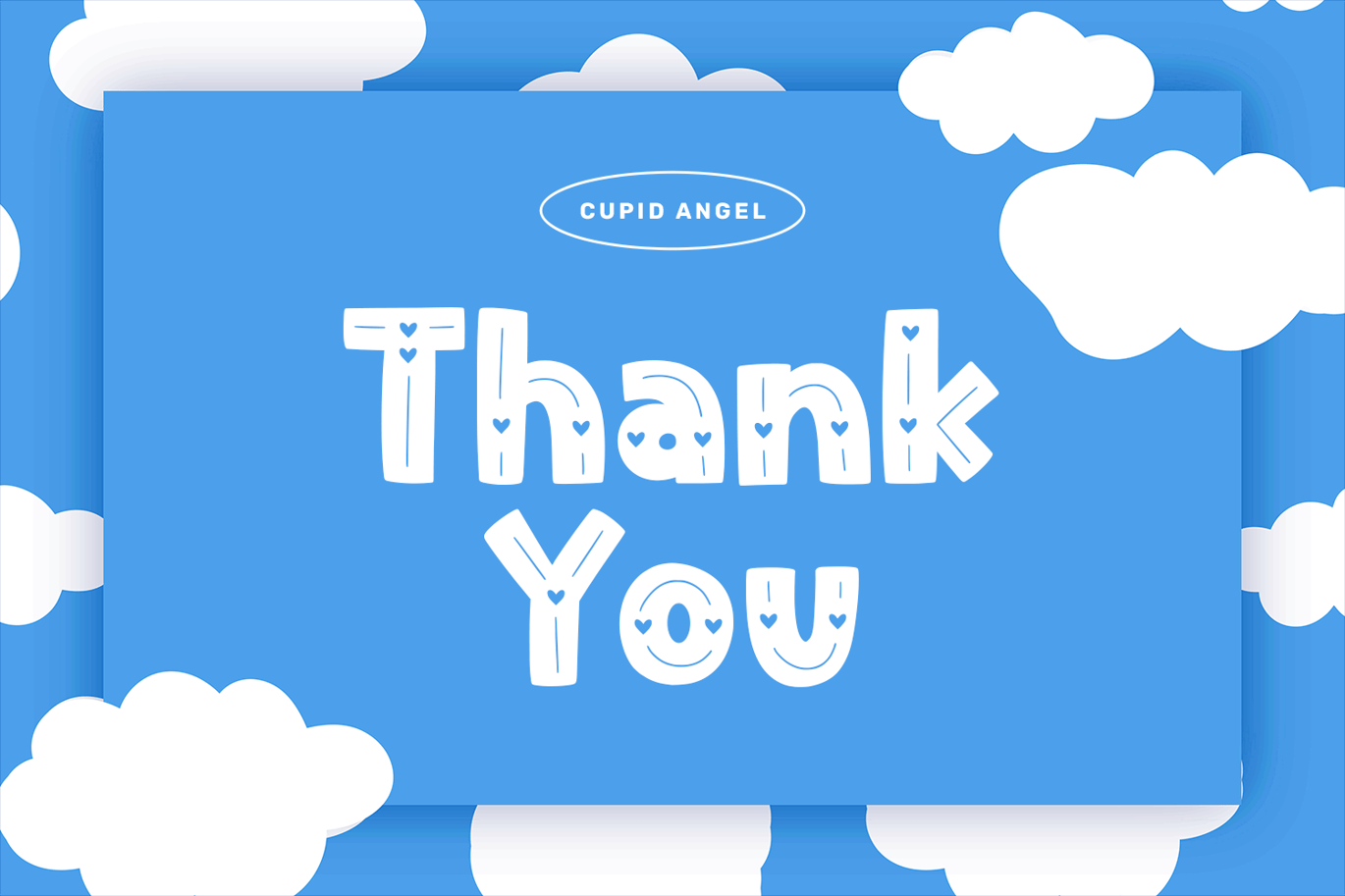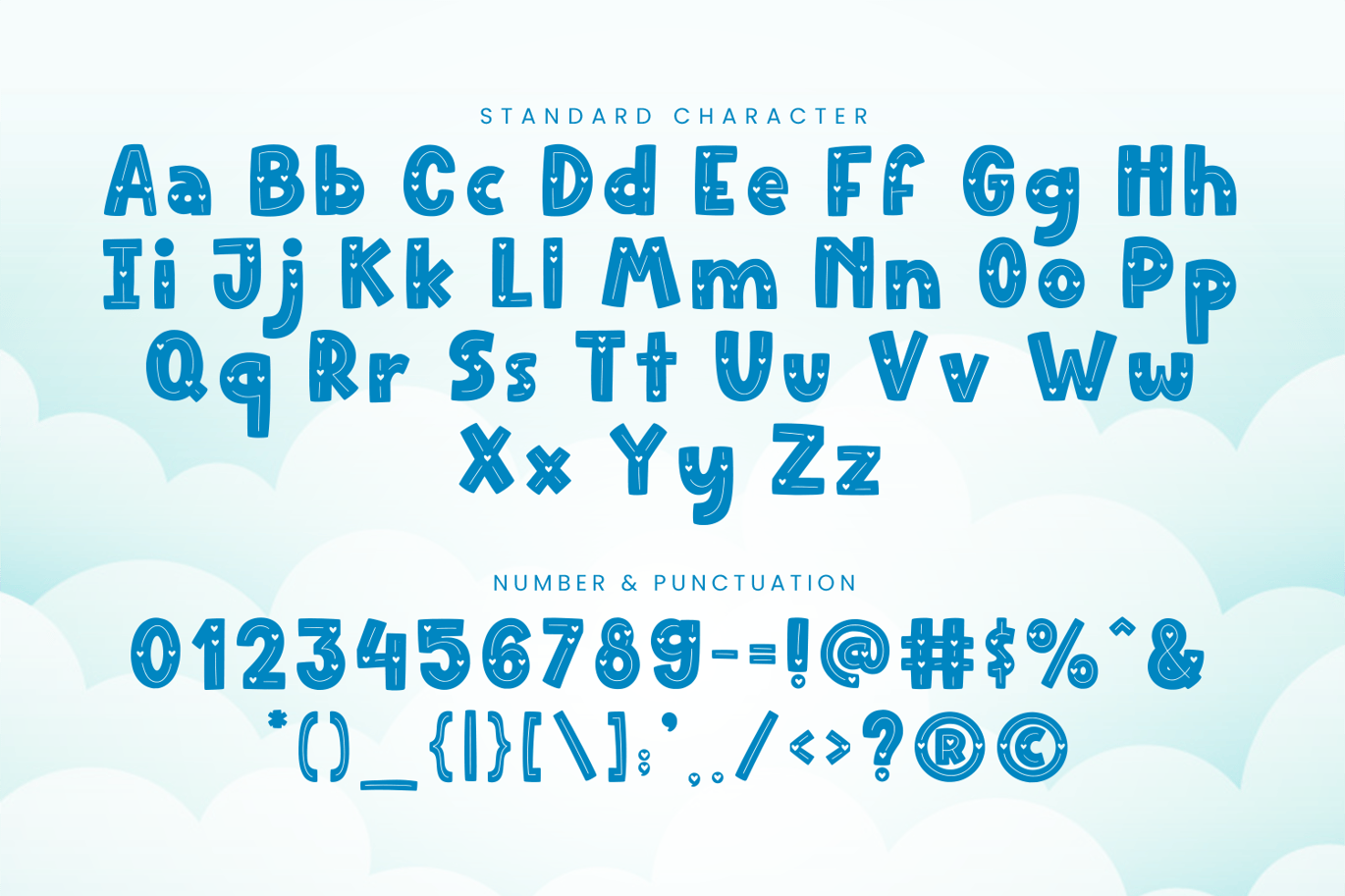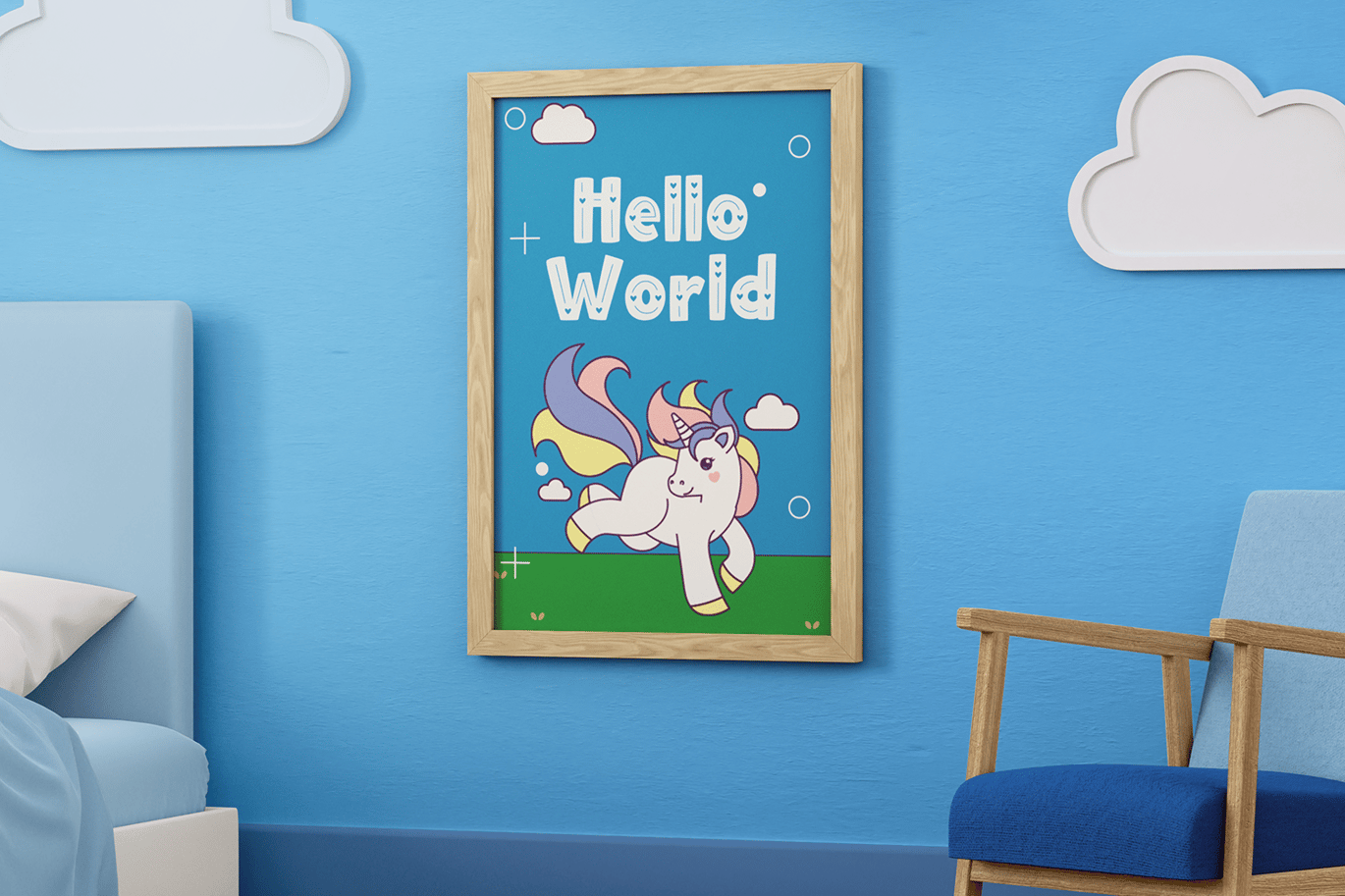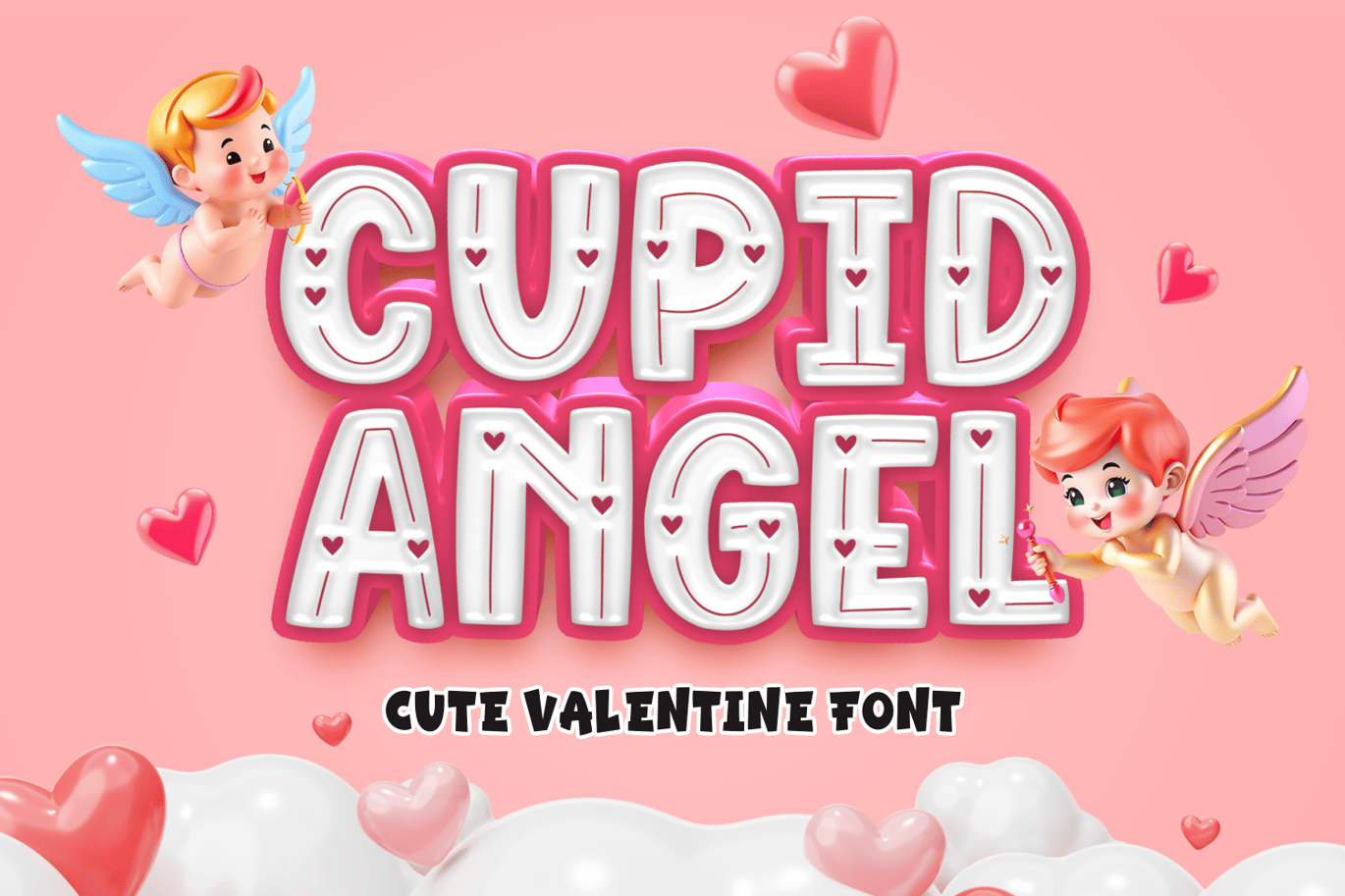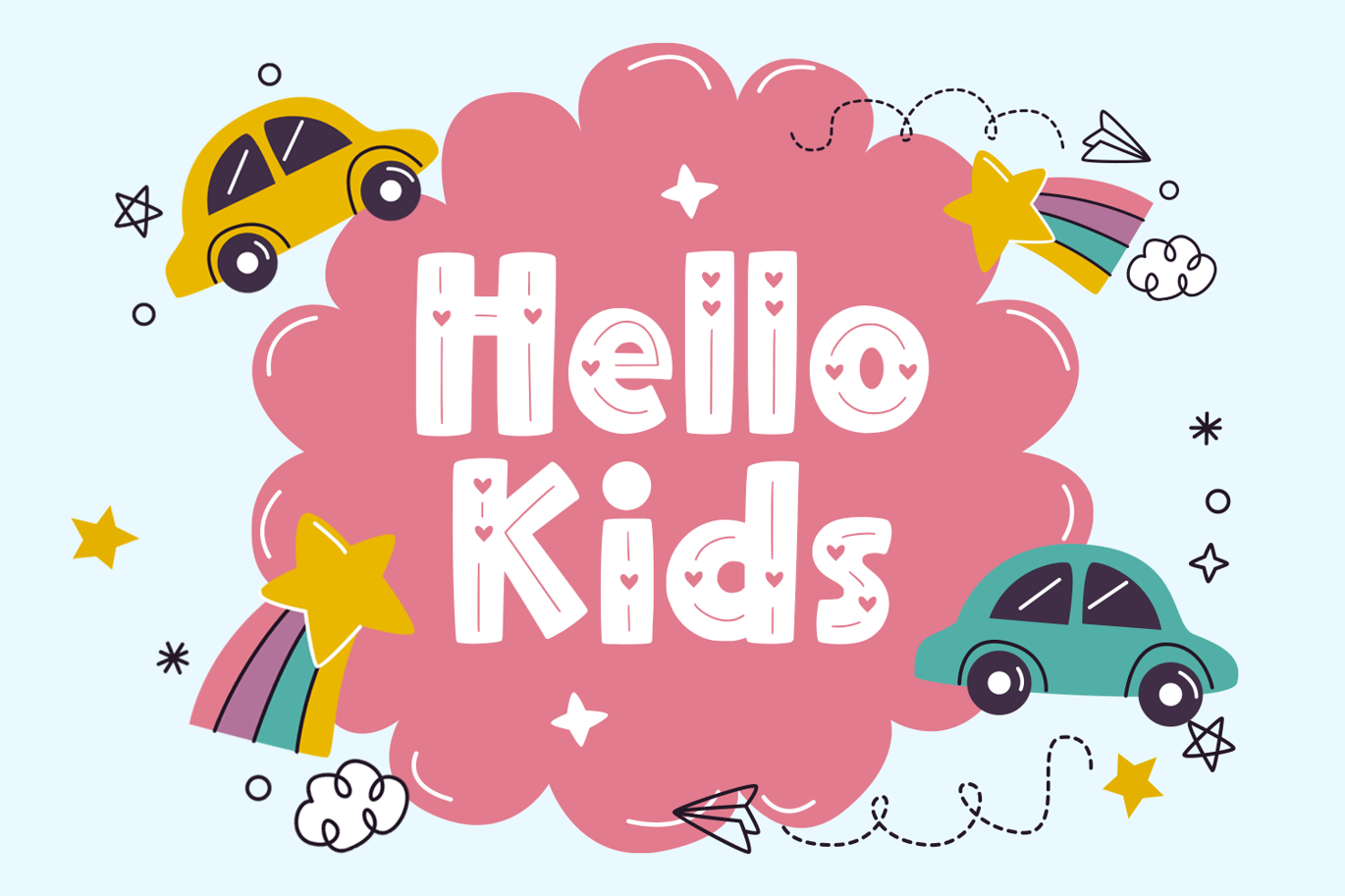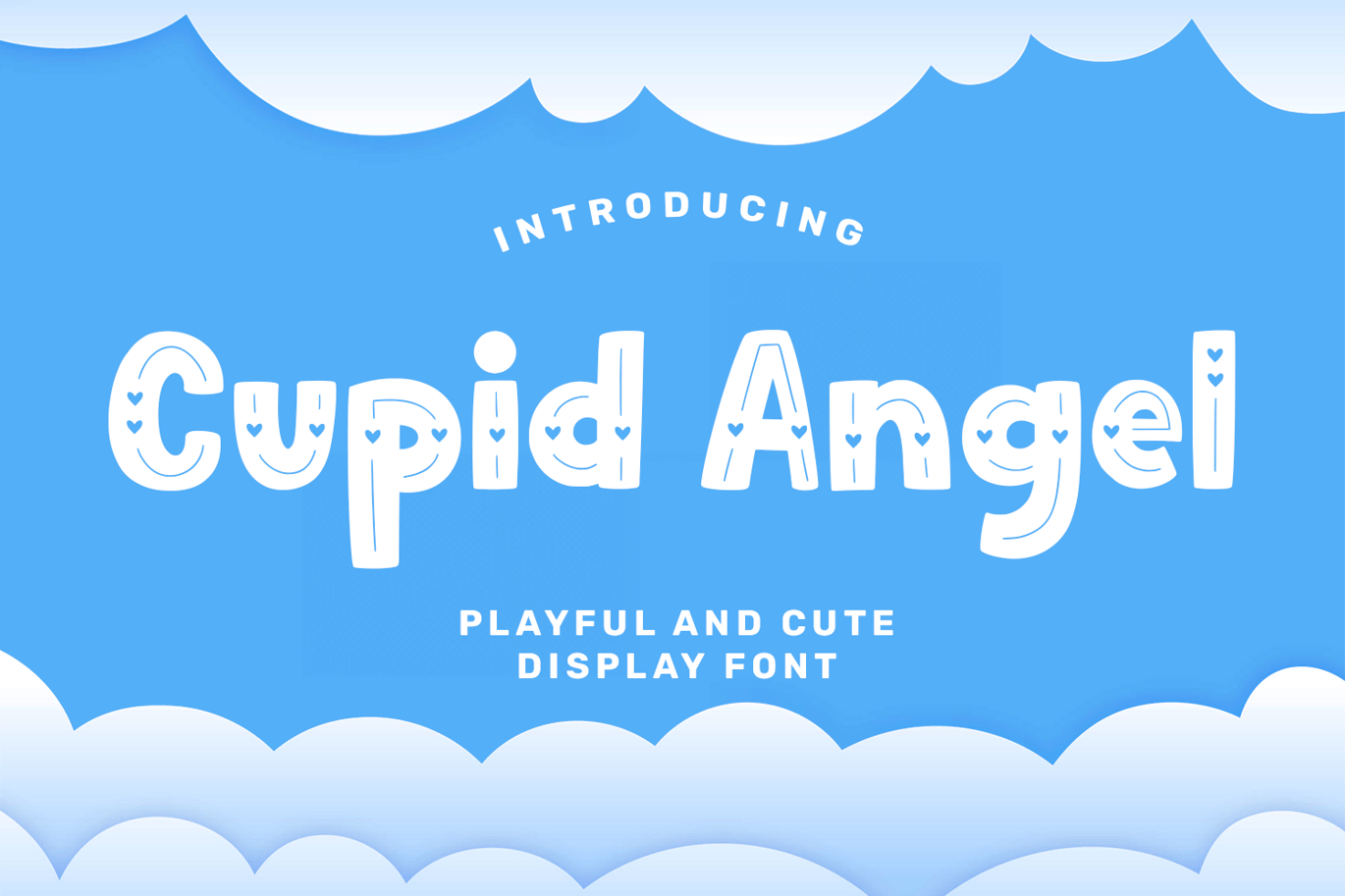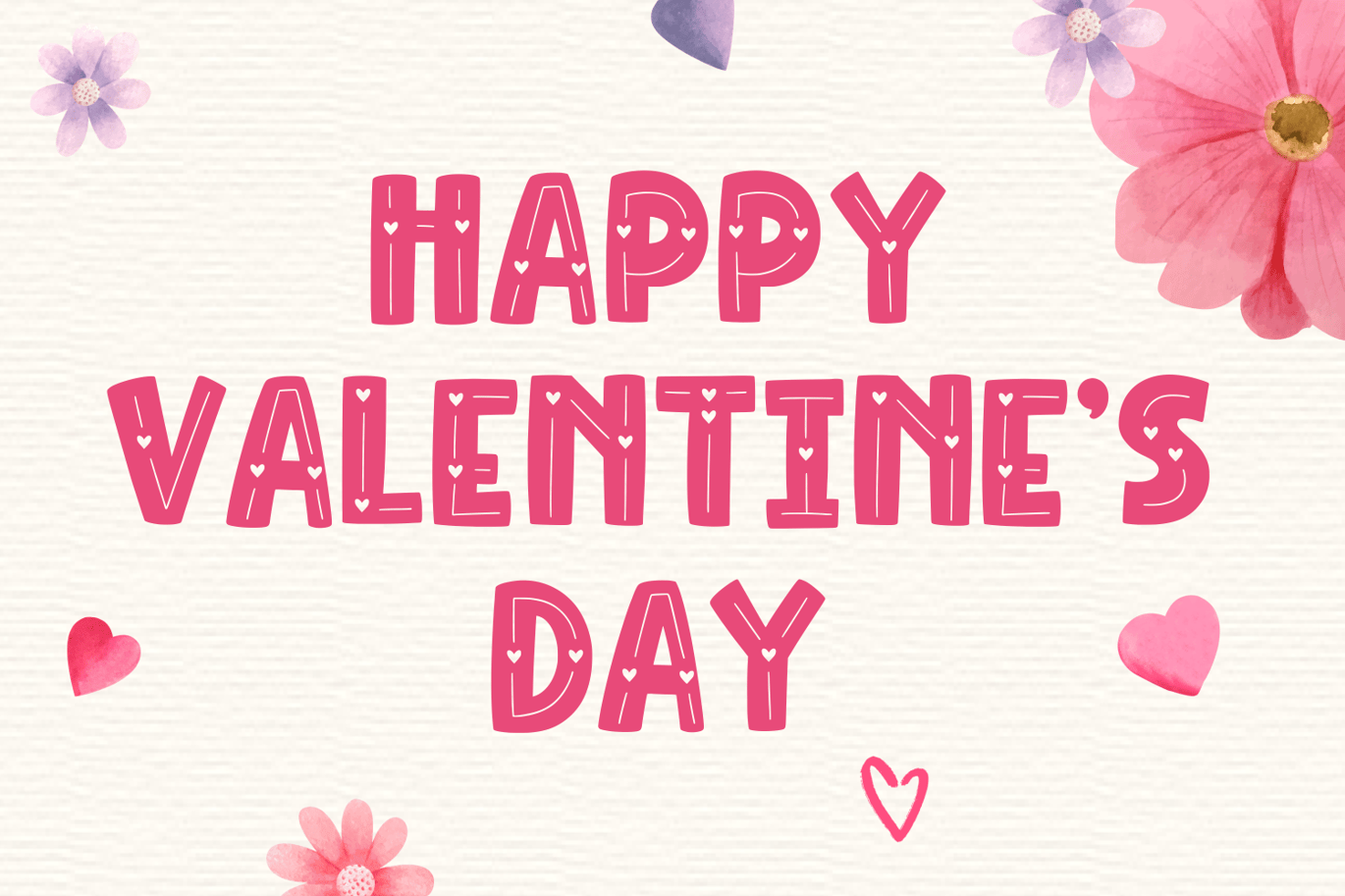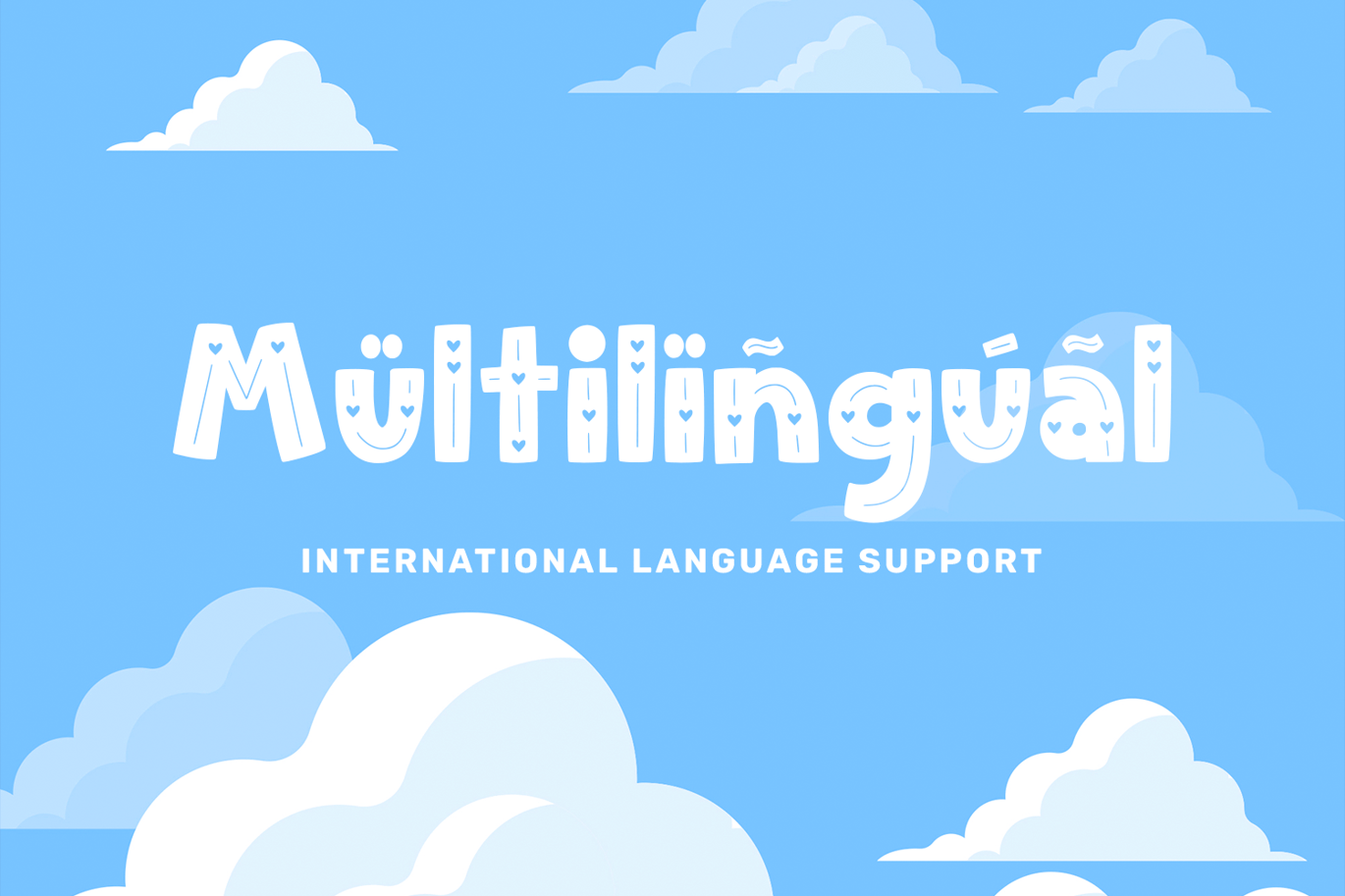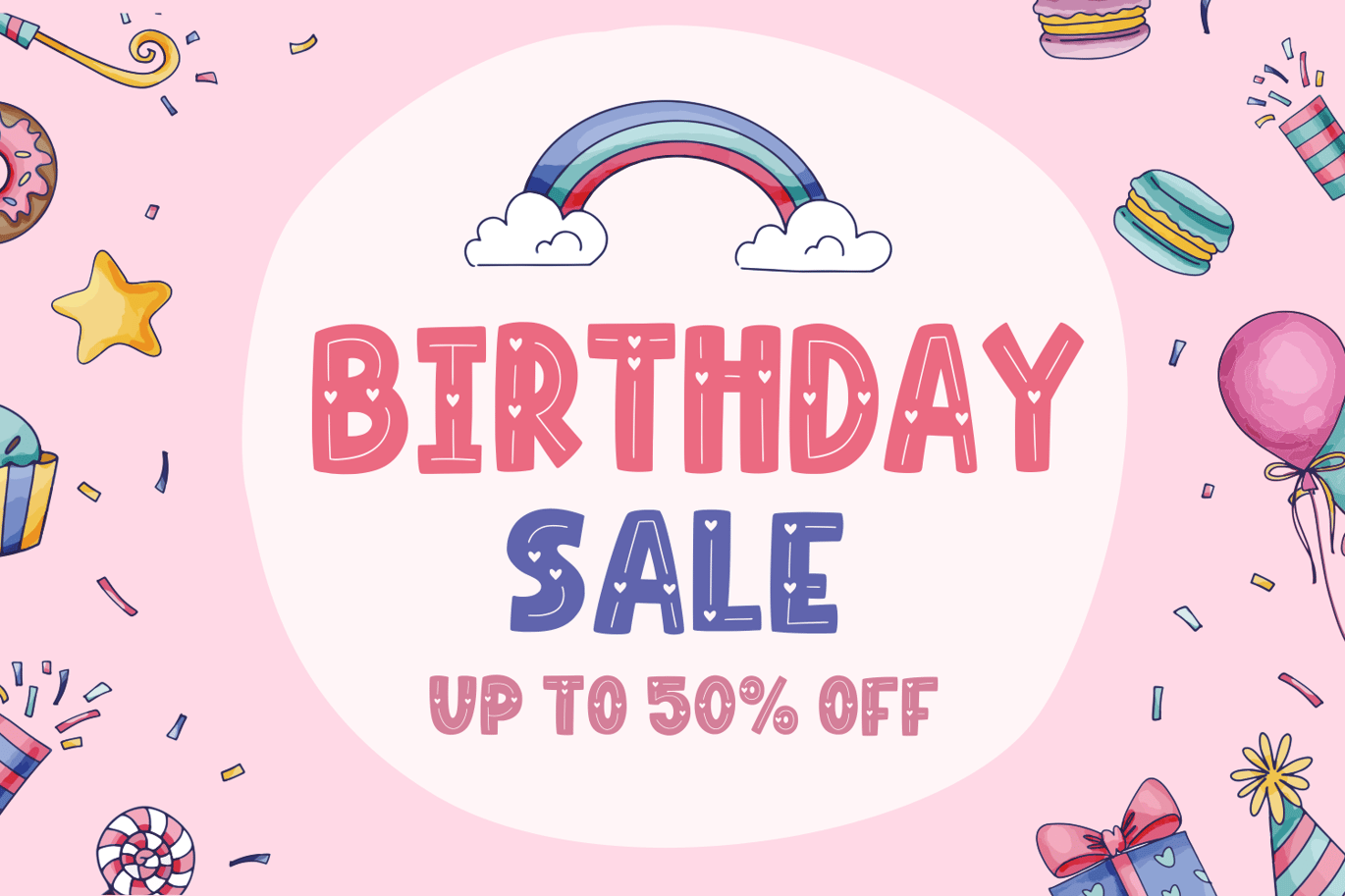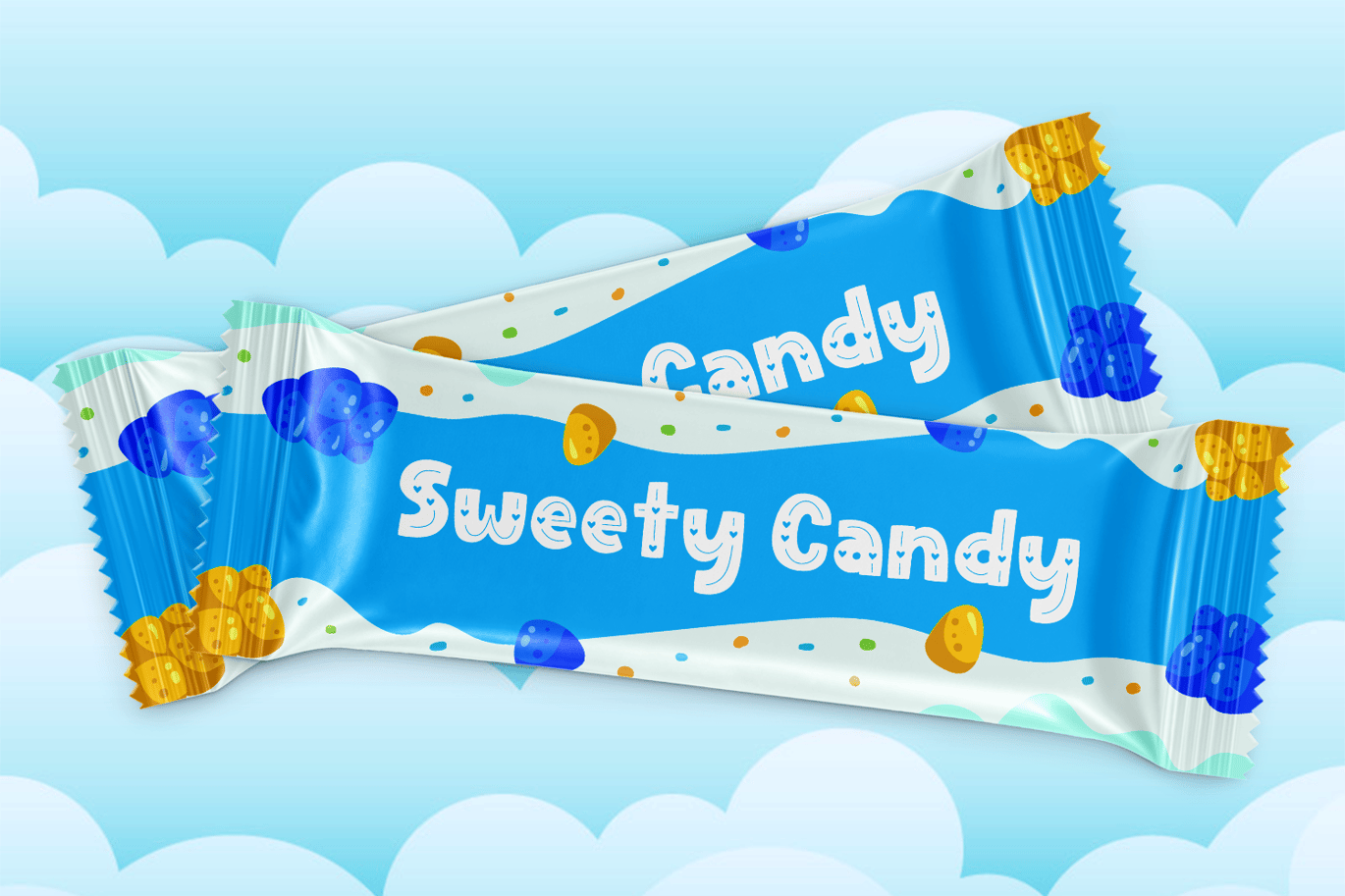
Cupid Angel – Happy Valentine Font
Introducing “Cupid Angel,” a sweet and charming display font that perfectly captures the spirit of Valentine’s Day, love, and romance. With its cute and playful style, this font is ideal for creating heartfelt designs that celebrate love in all its forms. Whether you’re working on Valentine’s cards, love notes, or adorable kid-themed projects, “Cupid Angel” brings warmth and joy to every letter.
The soft, rounded edges and heart-inspired details make “Cupid Angel” the perfect choice for themes like Valentine, romance, and anything that needs a cute, loving touch. From wedding invitations to romantic crafts, this font adds a delightful, whimsical flair to any design, making it stand out with its sweet and lovable personality.